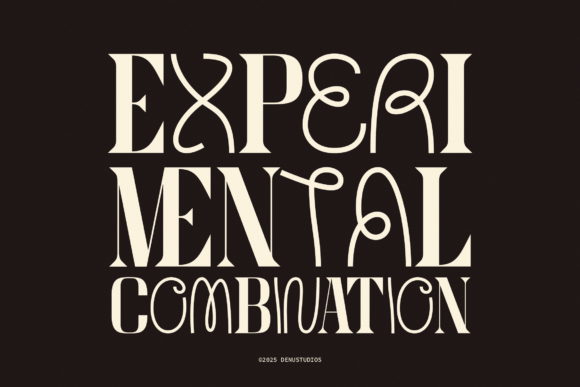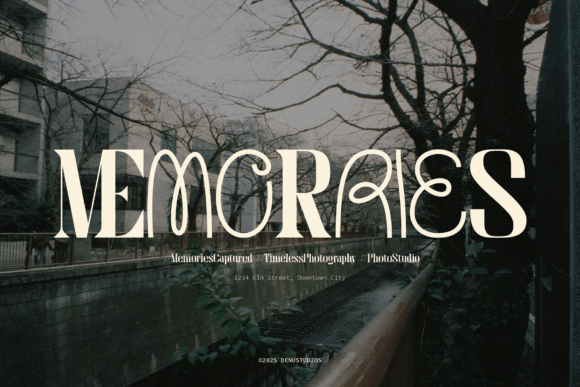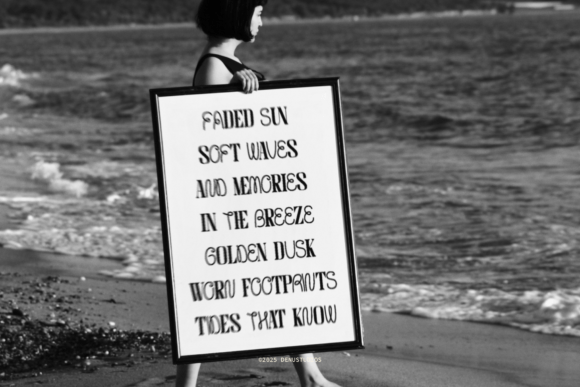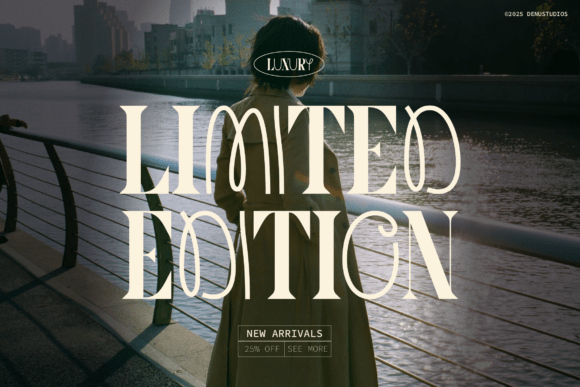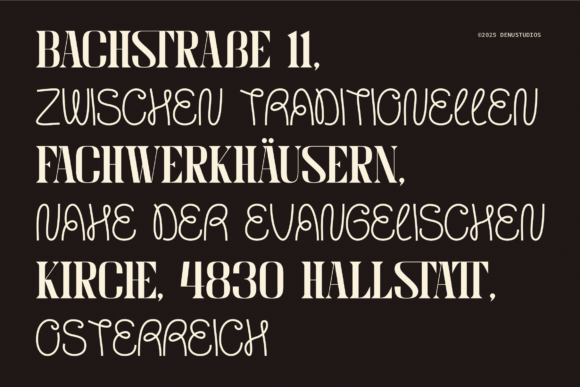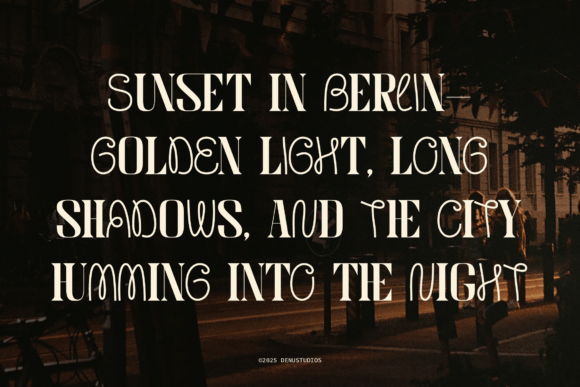
Introduction to Meciera Font
Have you ever been in a creative rut, staring at a blank page, searching for the perfect font to bring your design to life? That’s where Meciera Font comes in – a high-quality, combination serif font that’s sure to elevate your creative project. Whether you’re working on a logo, branding project, or even a simple quote for social media, Meciera Font has got you covered.
As a valuable resource for designers, Meciera Font offers a unique combination of elegance and versatility, making it perfect for a wide range of design applications, from homeware designs to product packaging. With its transparent background, you can easily combine it with other design elements to create a cohesive look that truly stands out.
Ready to discover the full potential of Meciera Font? In this article, we’ll delve into the world of this incredible font, exploring its features, benefits, and how you can use it to take your design projects to the next level.
Key Features of Meciera Font
- High-quality design resource ideal for creative projects, with a professional and elegant appearance.
- Unique characteristics include a clean and modern aesthetic, with subtle flair and sophistication.
- Perfect for use in logos, branding, and other design elements where a touch of elegance is required.
Honest Review: Meciera Font
I recently came across the Meciera Font while working on a creative project, and I must say it’s a great addition to any design resource collection. The Meciera Font is a high-quality font that offers a lot of versatility for various design needs.
- ✨ Transparency: One of the standout features of the Meciera Font is its transparent background, making it easy to use in any design scenario.
- ✨ Flexibility: The font comes in various styles, allowing you to choose the perfect one for your creative project.
While the Meciera Font is a great resource, there are some limitations to consider. ⚠️ The font may not be suitable for small text sizes due to its relatively large character set. Additionally, some users may find the font’s style a bit too playful for certain design projects.
Meciera Font
Tips for Getting the Most Out of Meciera Font
For the best results, use the Meciera Font in conjunction with other high-quality design elements. Experiment with different font sizes and styles to create a visually appealing design.
The Meciera Font is ideal for use in logos, branding materials, and other creative projects where a stylish and modern font is required. Its transparent background makes it easy to use on various backgrounds and designs.
Yes, the Meciera Font features a transparent background, making it easy to integrate into your designs without any distracting backgrounds. This is especially useful for designs that require a high level of customization and flexibility.